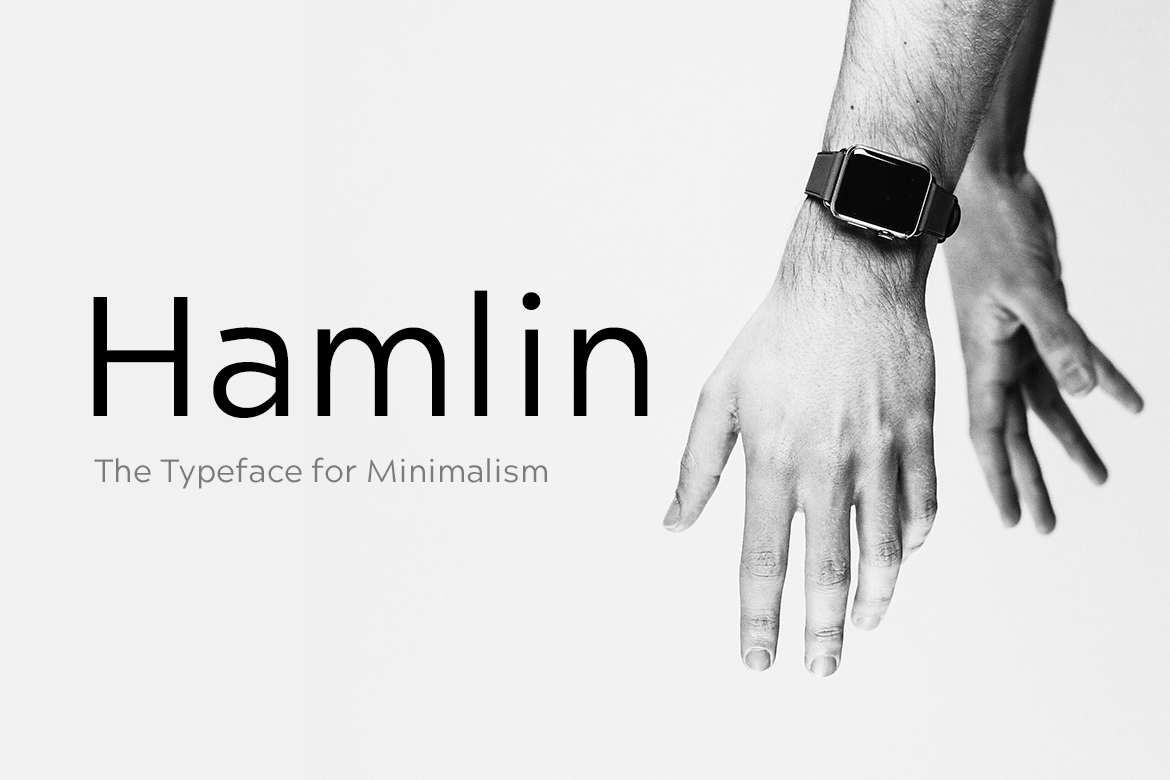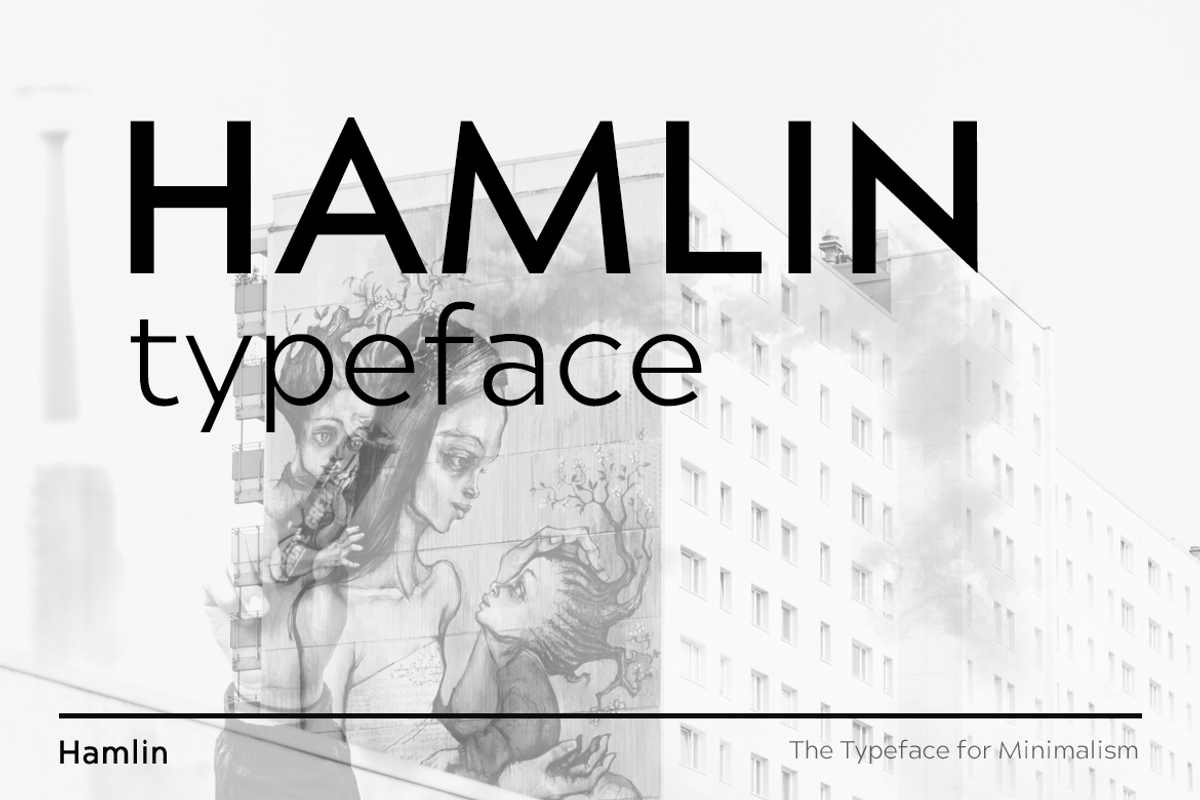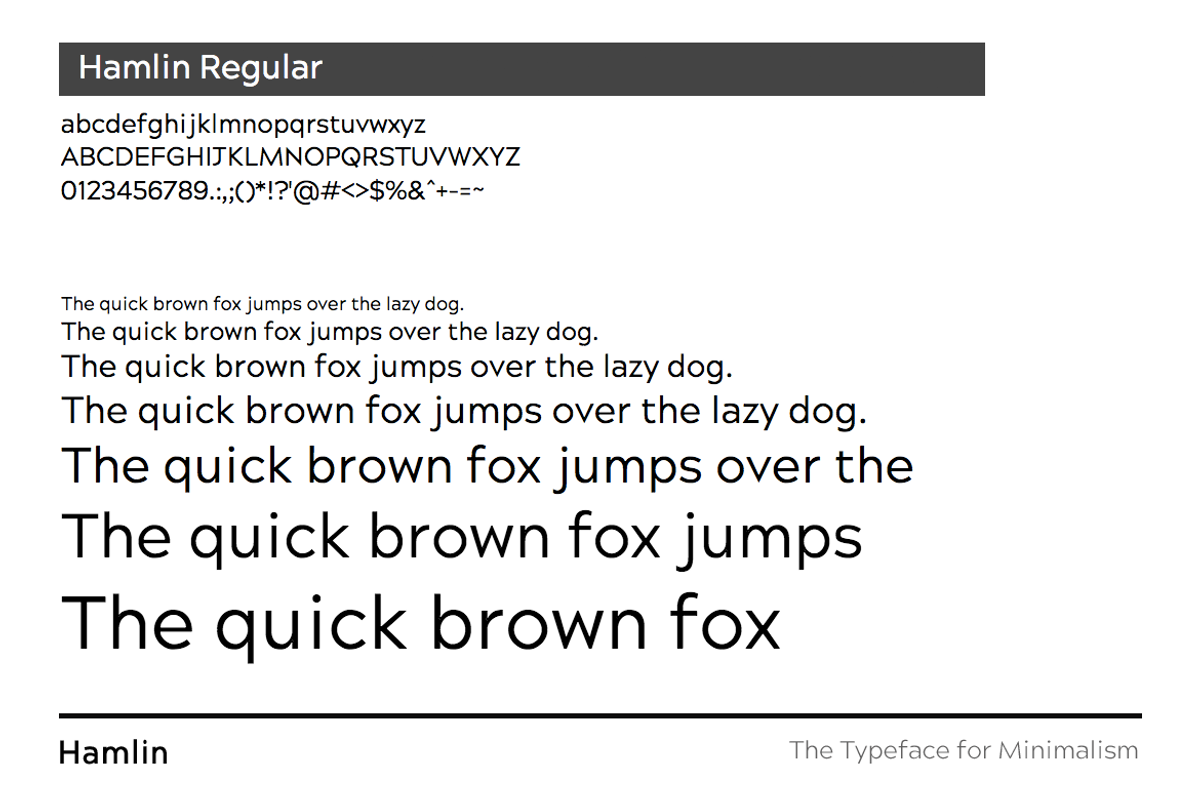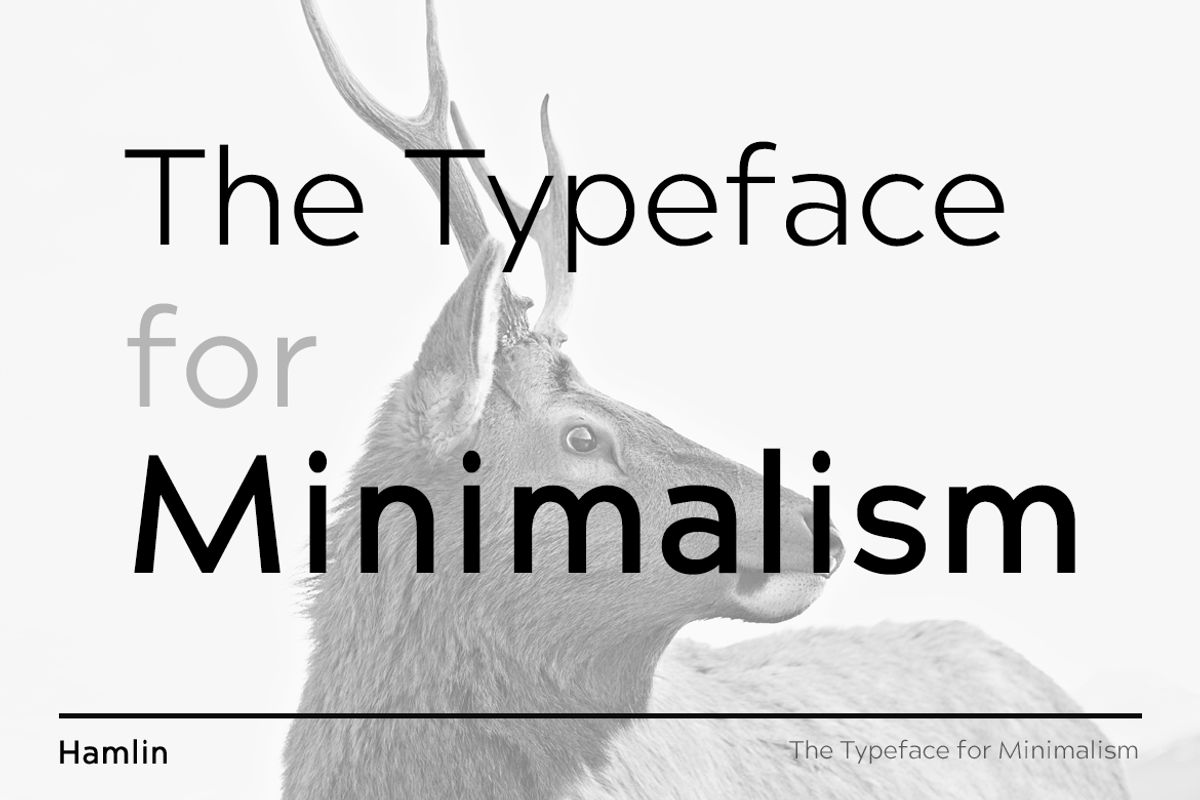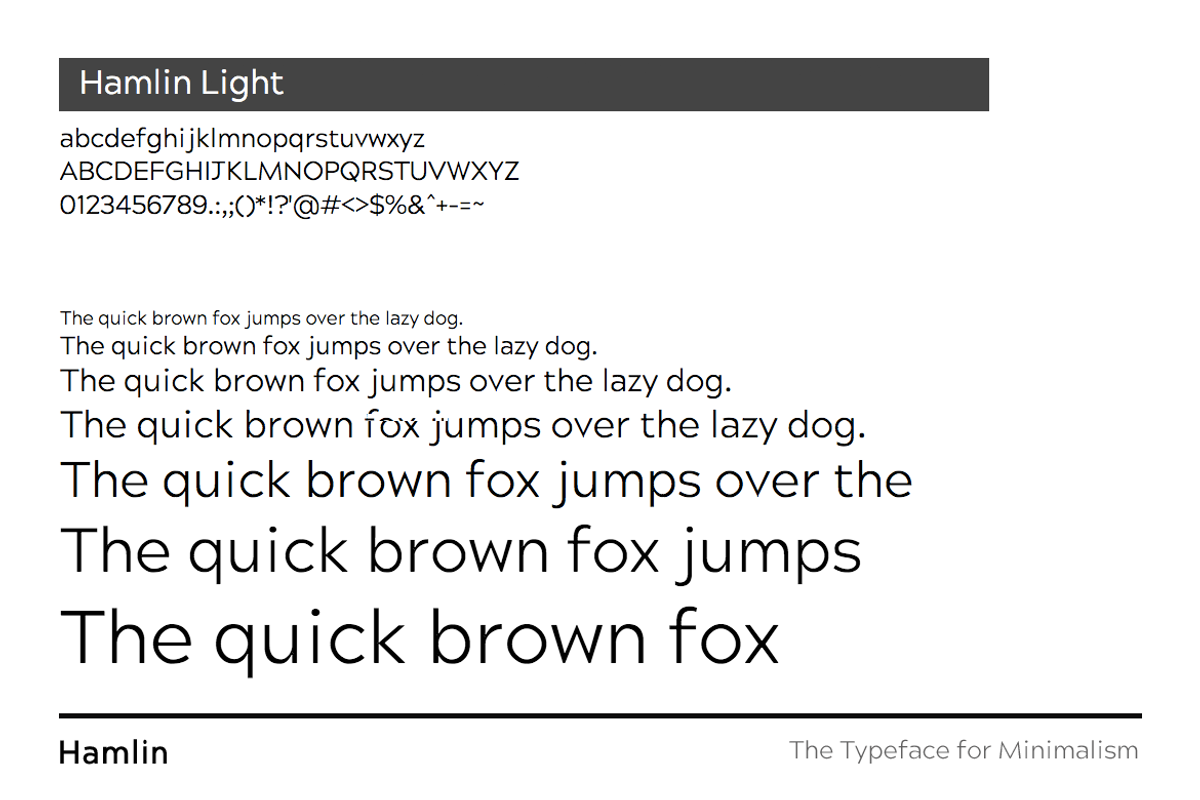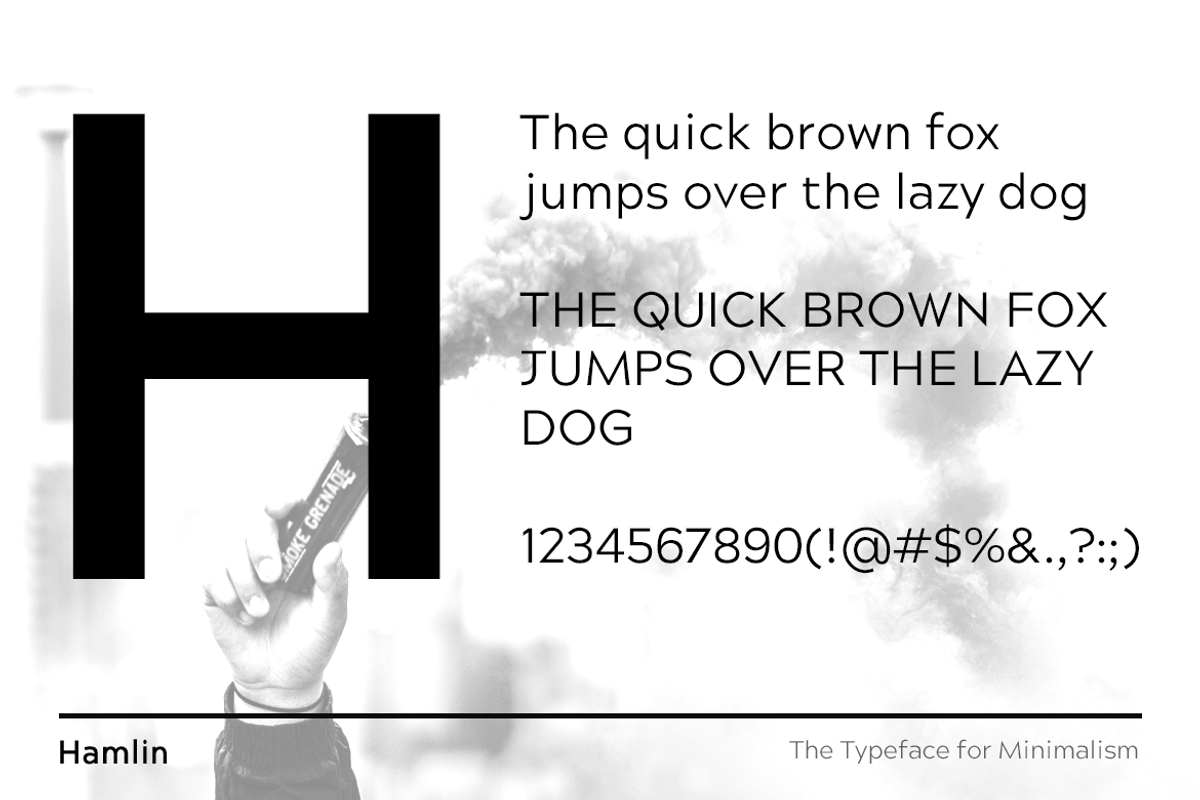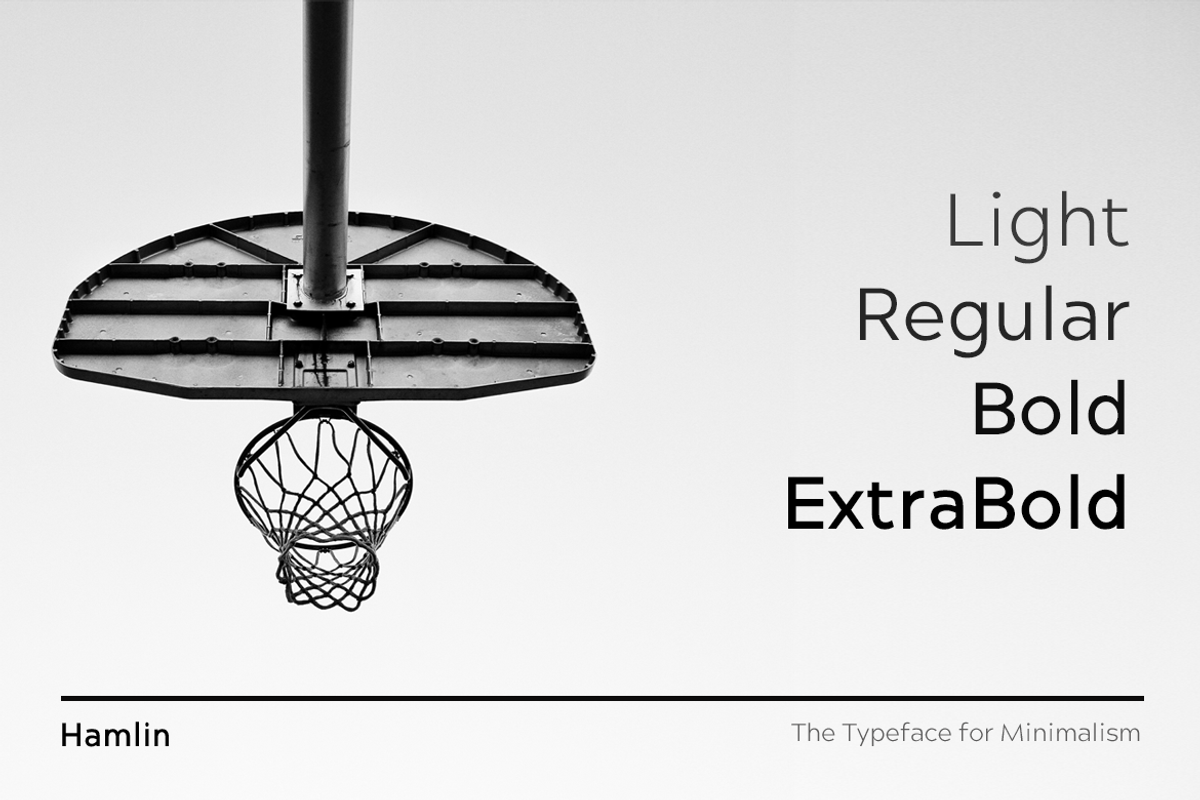
HAMLIN - Minimalist Font Family
HAMLIN is a modern Sans Serif typeface dedicated to minimalism as new design trend. The concept of HAMLIN is inspired from some of the classic geometric fonts but with it's own uniqueness, depth and identity.
HAMLIN will be best suited for creating amazing headlines, clean body texts, minimal logo types and anything that your imagination can bring to life. If you add some letter spacing you will get a unique style that you always find in high profile fashion web stores and minimal portfolio websites. The font comes with 4 weights with all formats including Web Fonts.